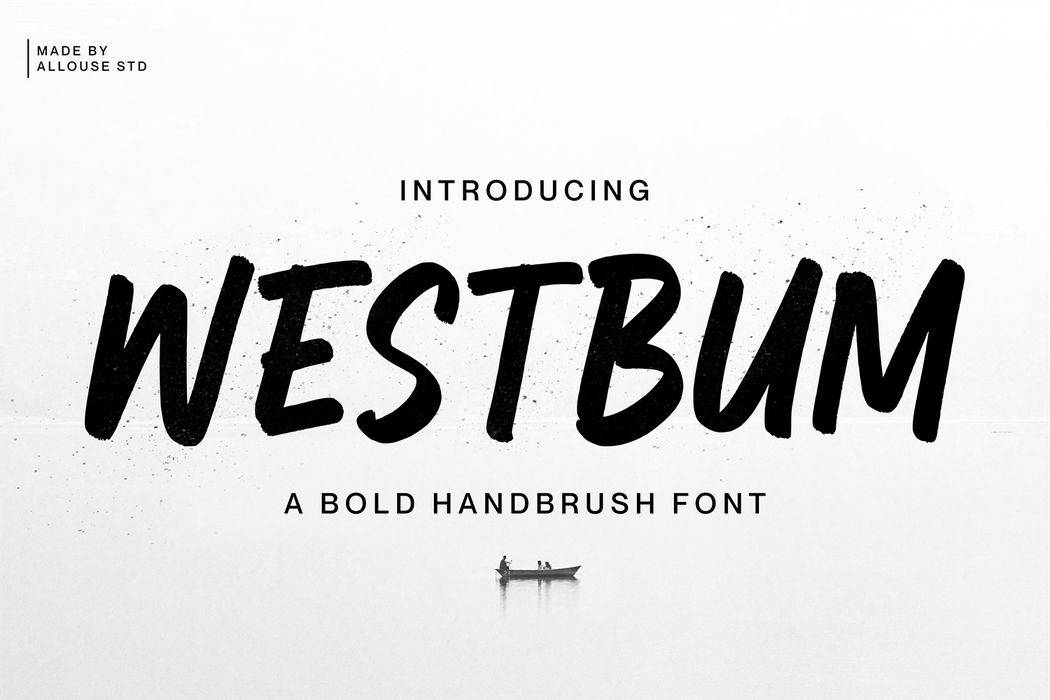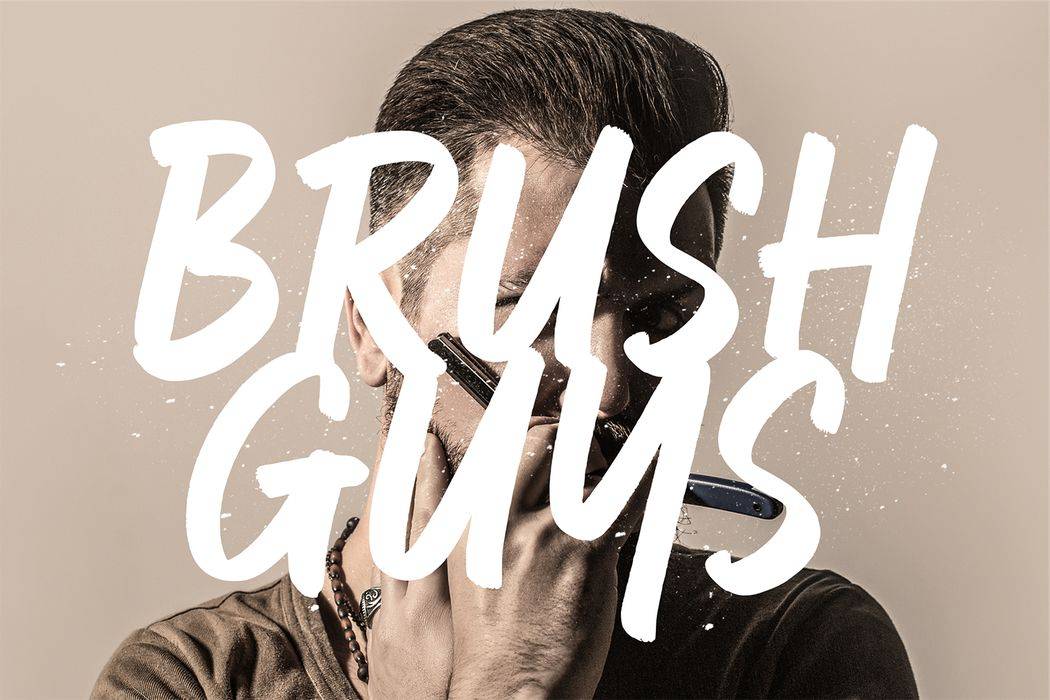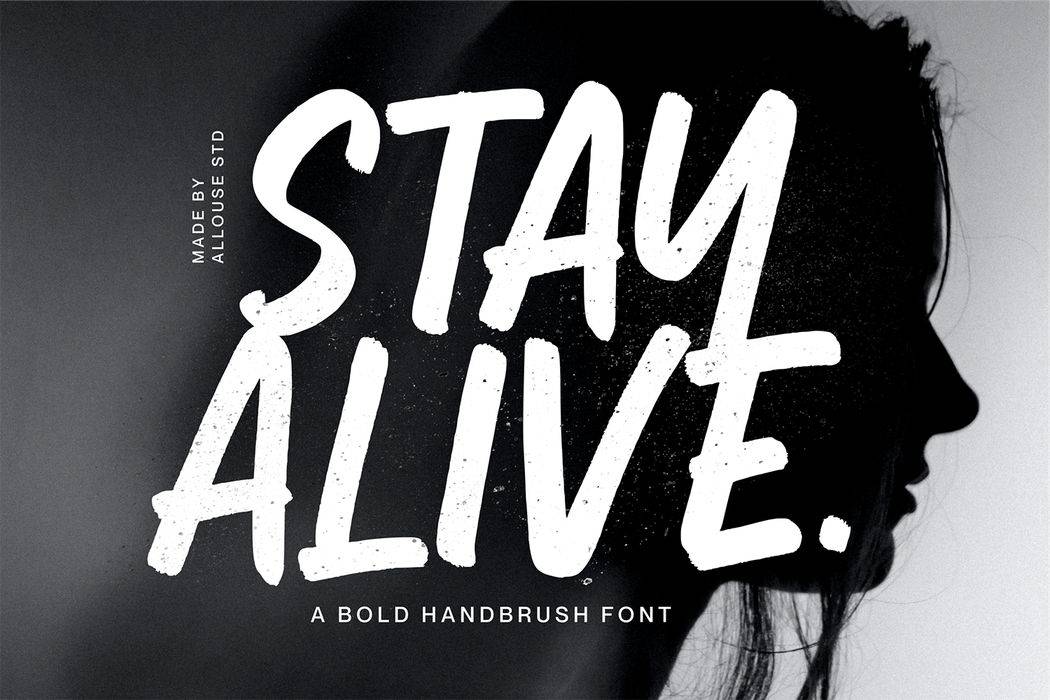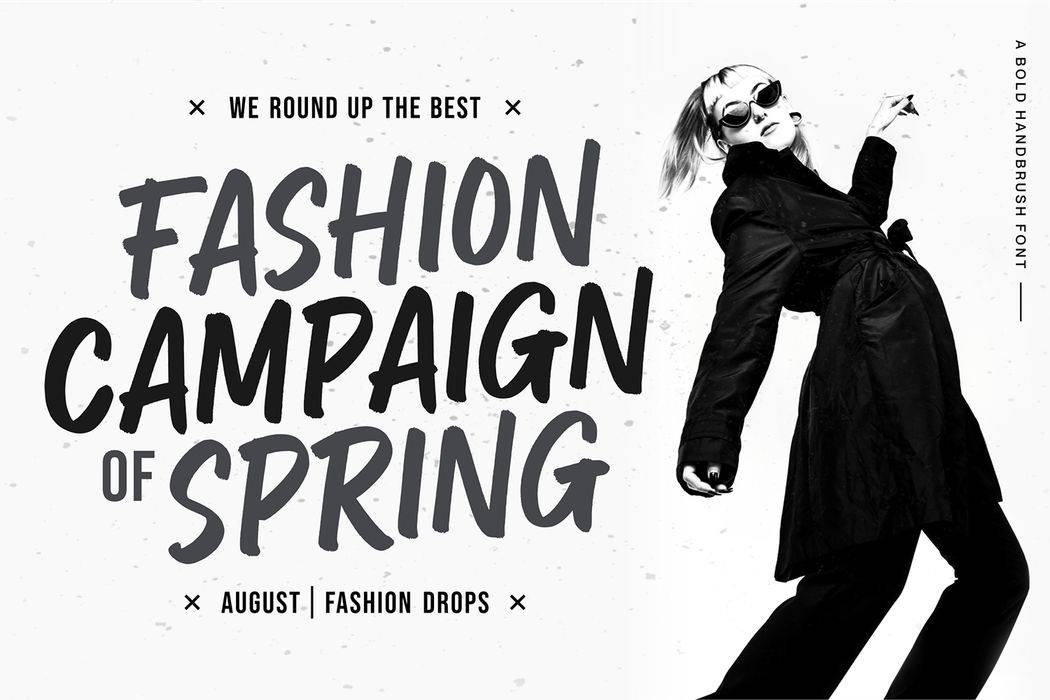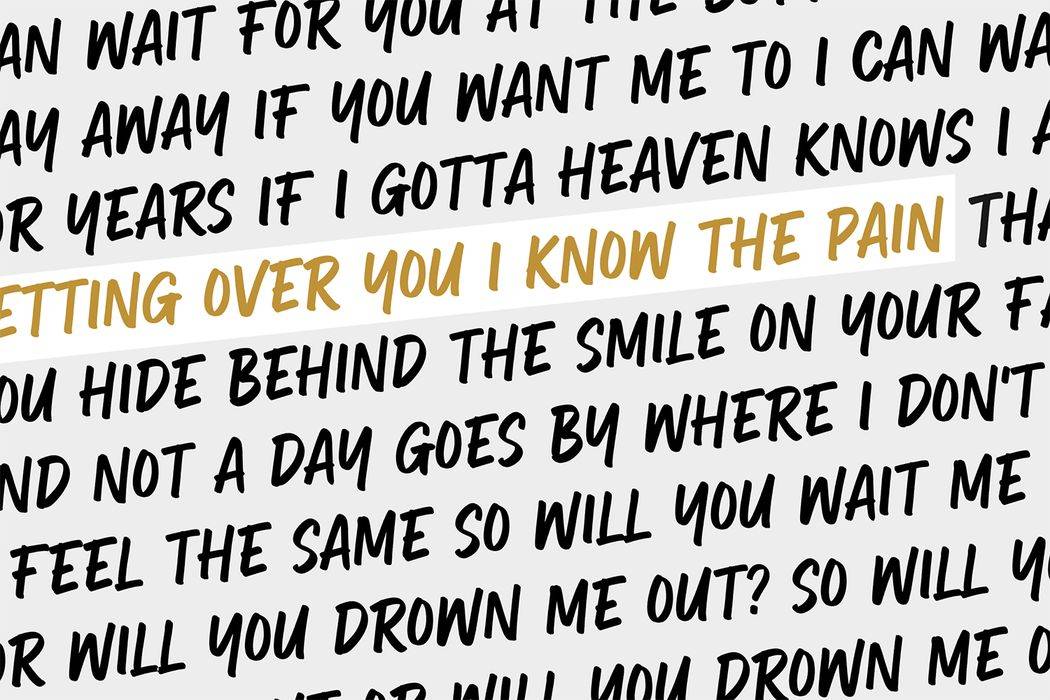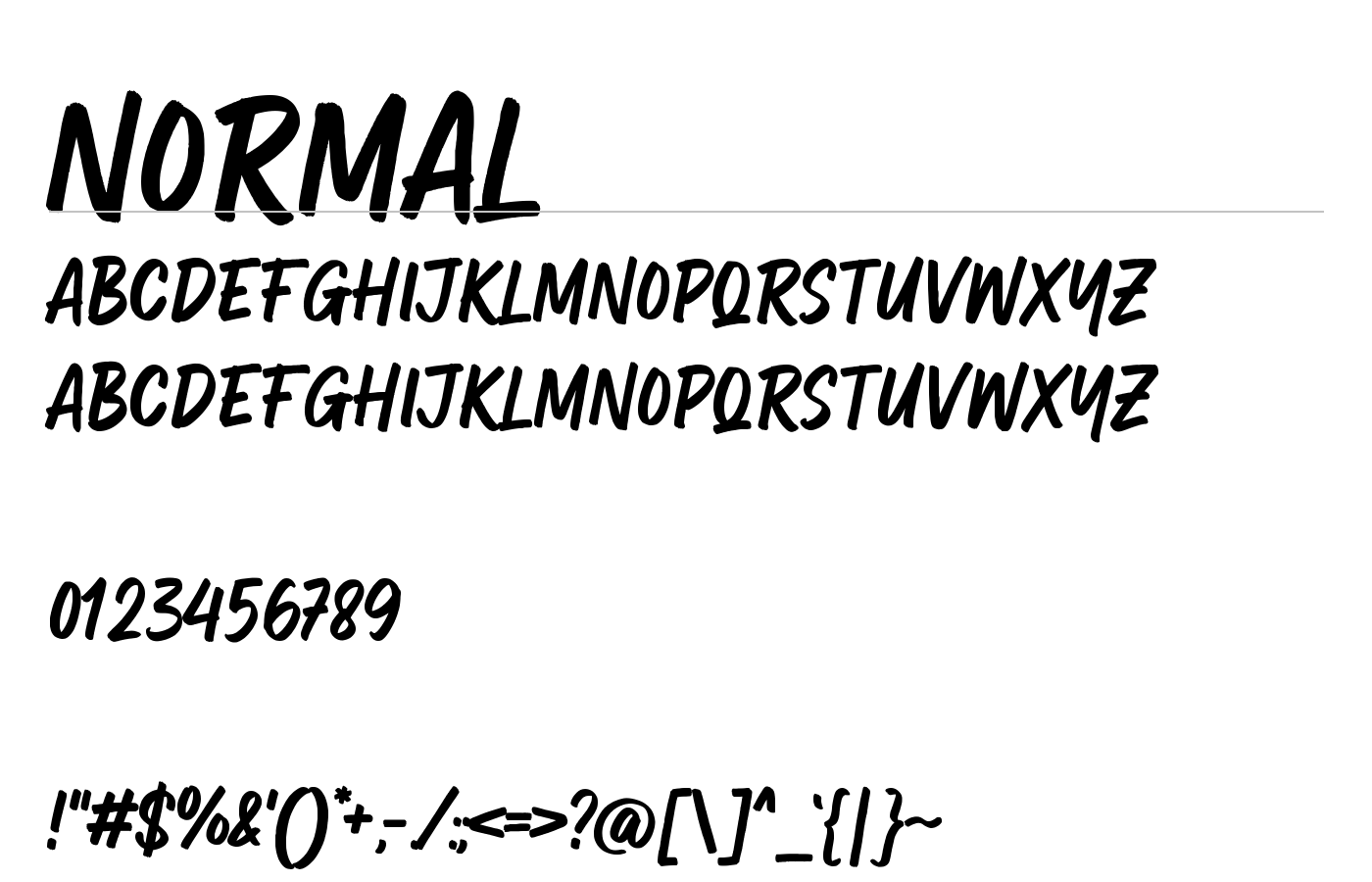
Westbum is a bold, casual handwritten sans serif font with an energetic and playful style. Its slightly slanted, brush-like strokes create a dynamic, informal feel that works well for creative branding, posters, and eye-catching headlines. This font is perfect for designs that want to convey friendliness and spontaneity while maintaining clear readability.
Westbum Font
About Westbum Font